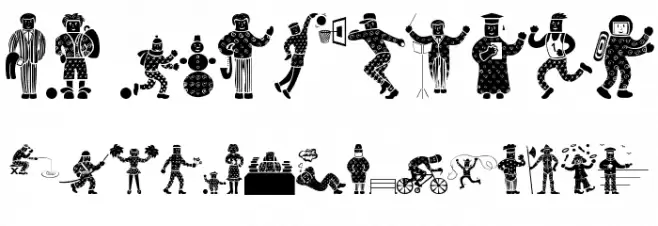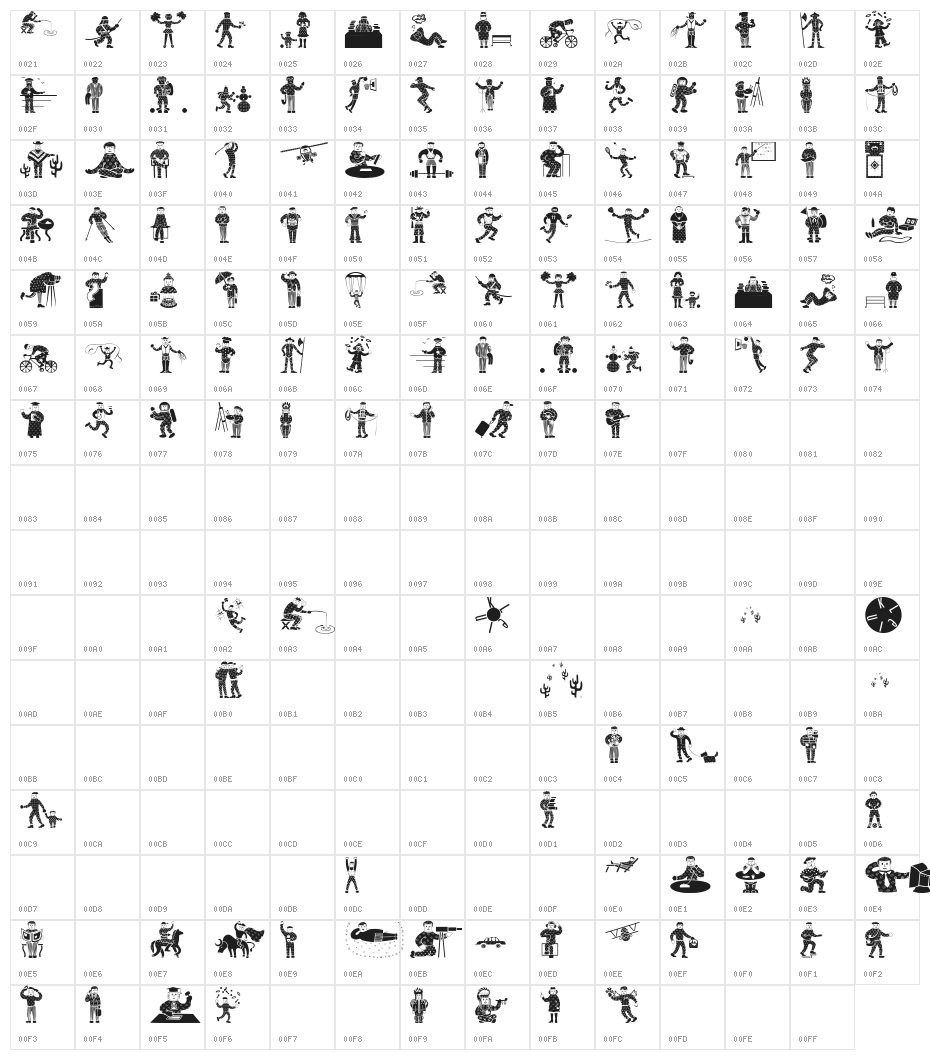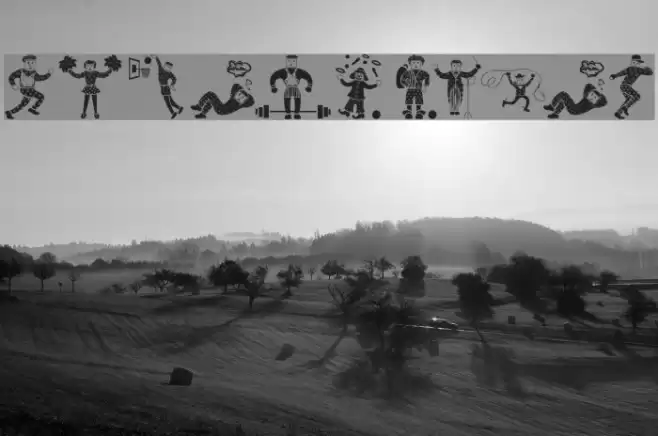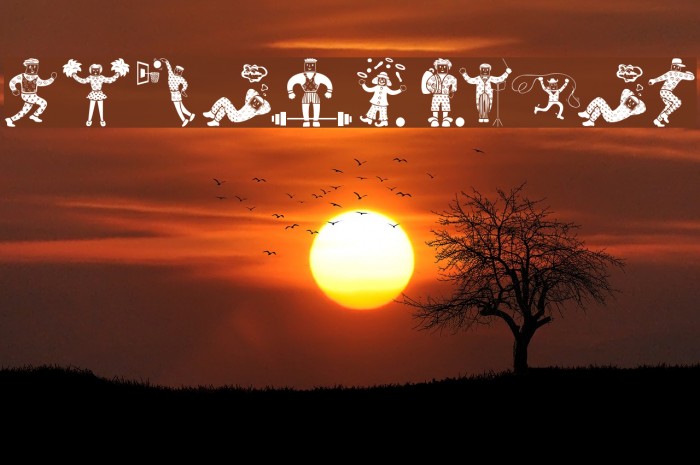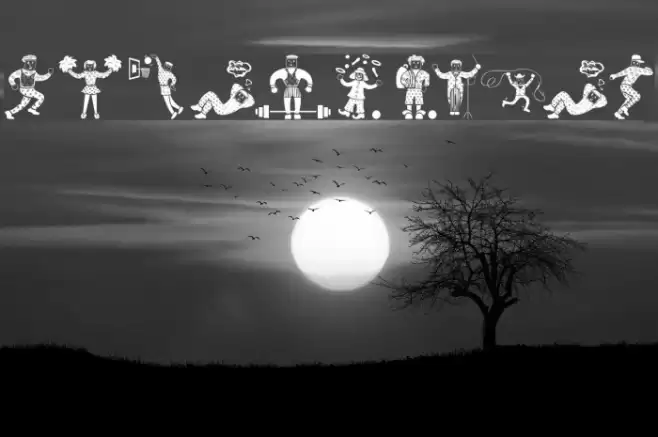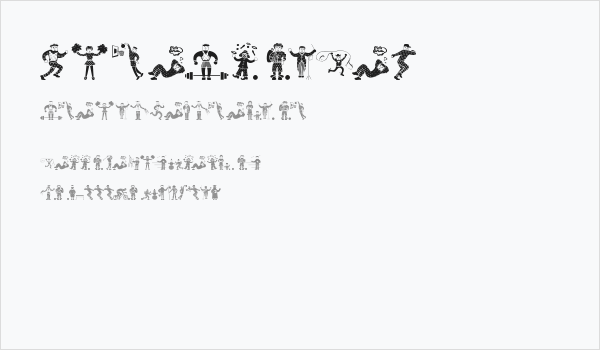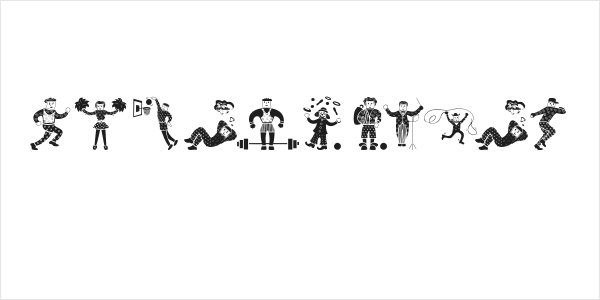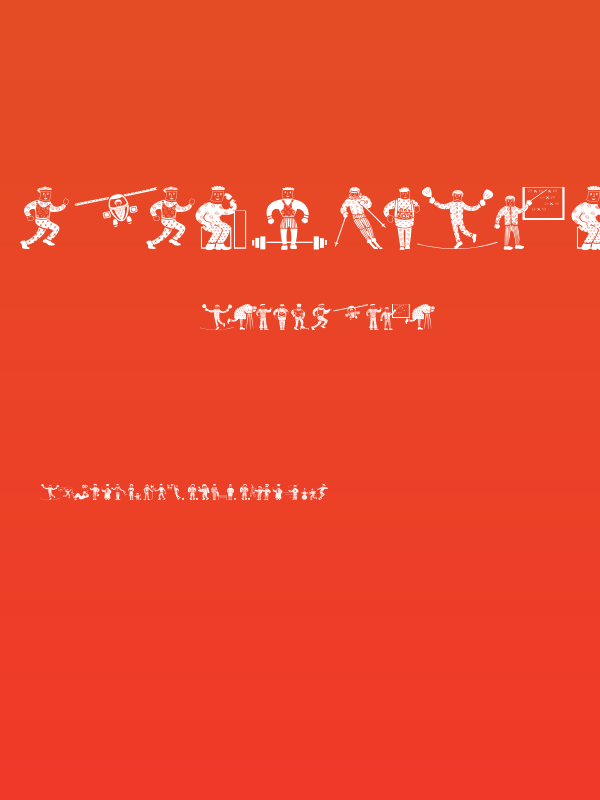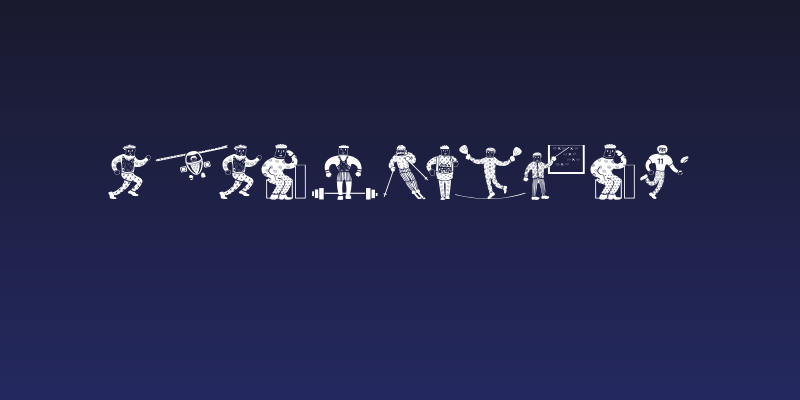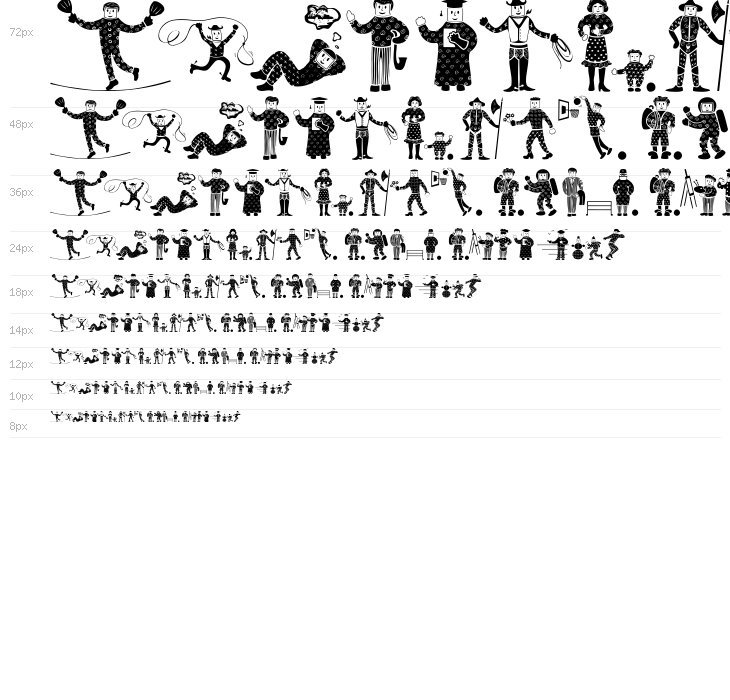
RareClothes Font
RareClothes Description
A whimsical, illustrative typeface where each character is represented by a playful, detailed cartoon figure engaged in various activities, creating a highly decorative and narrative visual style.
| Overall Style | Decorative, Playful, Whimsical |
| Use Case | Headlines, Logos, Posters, Themed graphics |
| Proposed Projects | ChildrenΓ’β¬β’s books, playful branding, posters, event invitations, educational materials. |